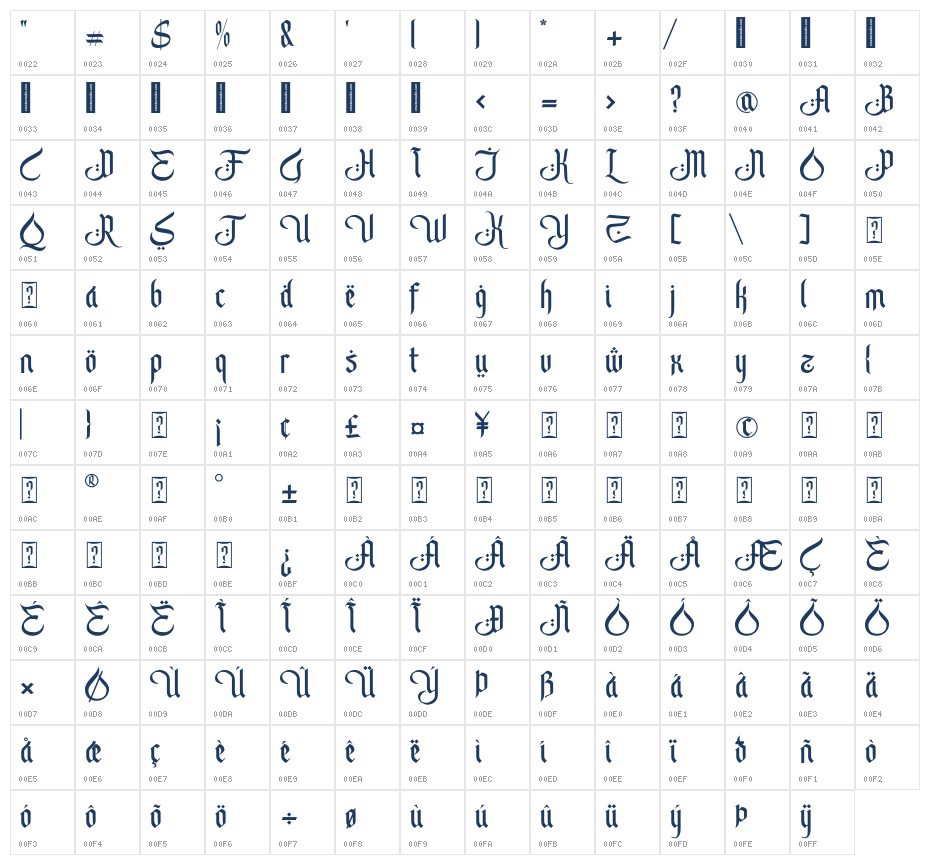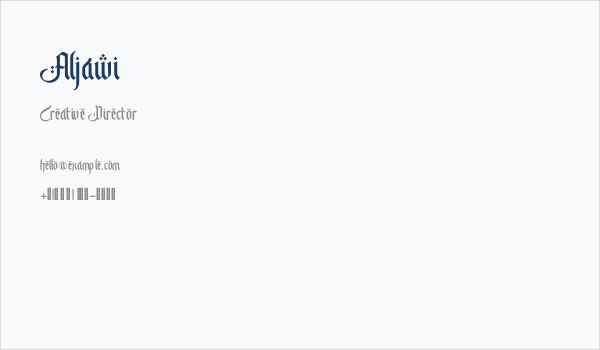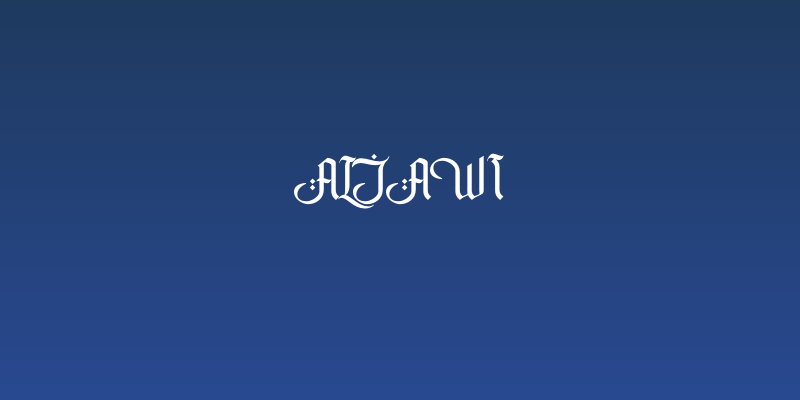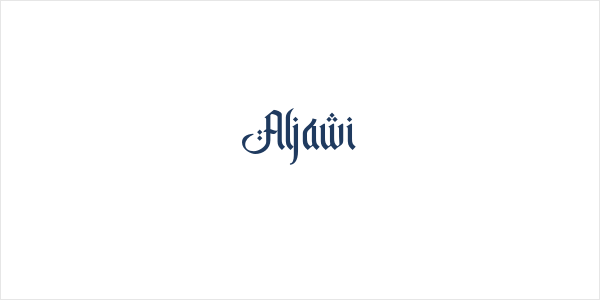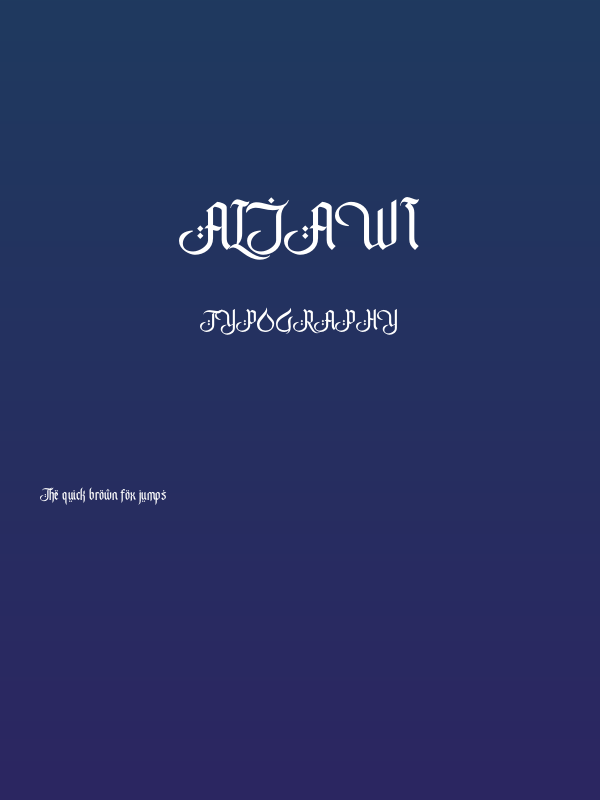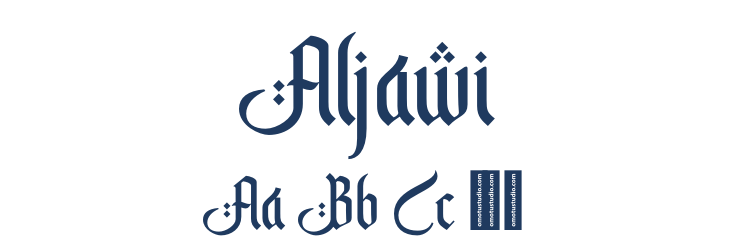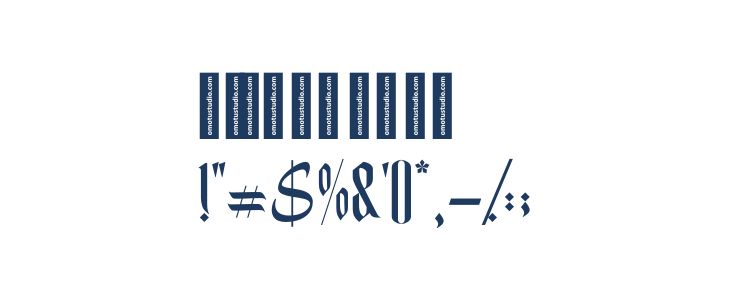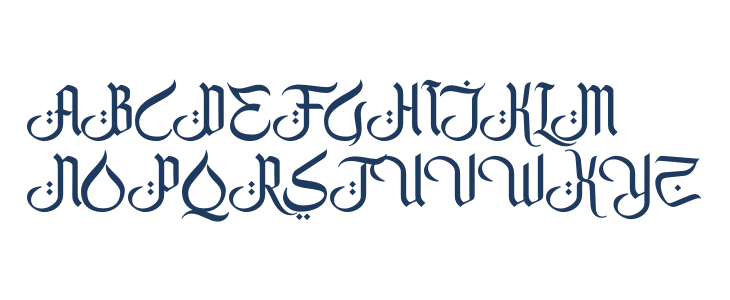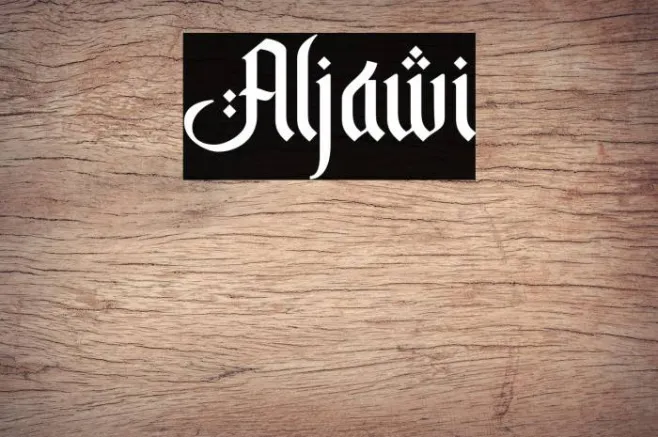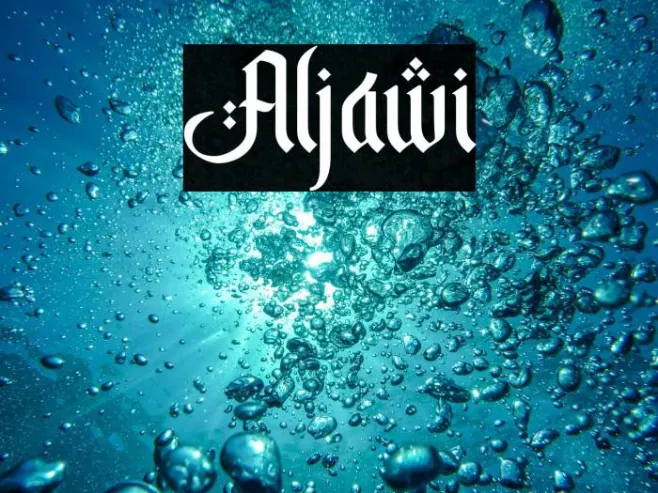
Aljawi Font
Aljawi Description
A decorative, Gothic-inspired font with sharp, angular lines and ornate details, resembling medieval calligraphy.
| Overall Style | Medieval, Gothic, Ornate |